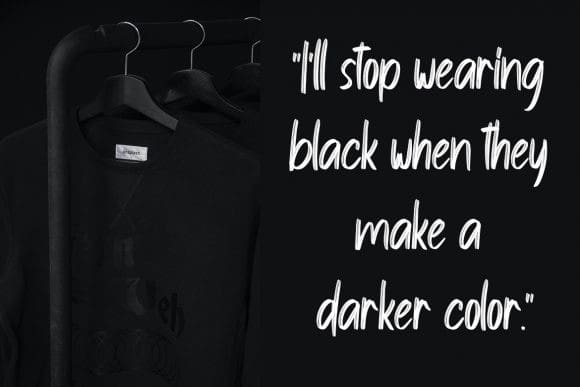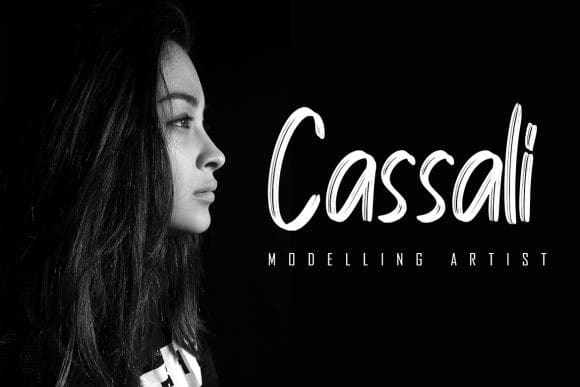
Diside Brush Font
Diside Brush Font is a brushed display font. It has an urban, cool and modern look that can be used for logos, branding, invitations, stationery, wedding designs, social media posts, and much more!